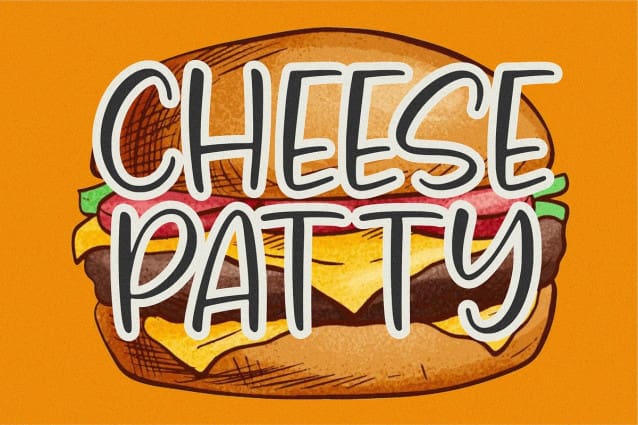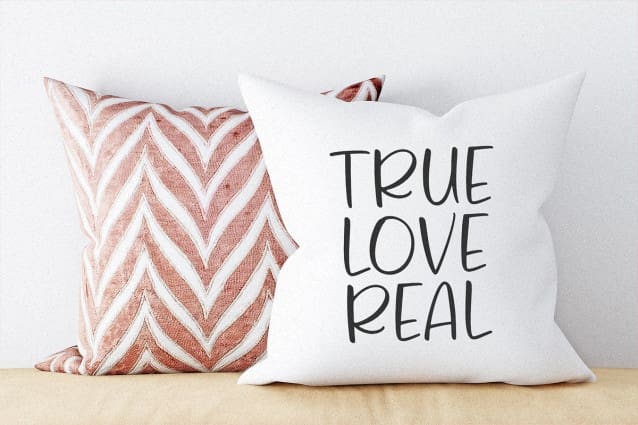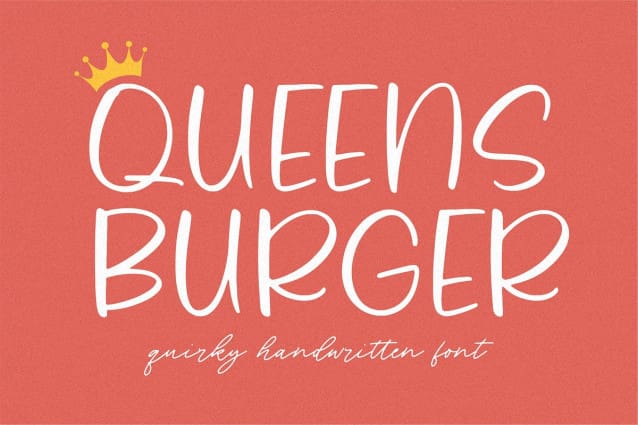
Queens Burger Font
Queens Burger Font is a Quirky Handwritten Font. Whether you’re using it for crafts, digital design, presentations, or making greeting cards, this font has the potential to become your favorite go-to font, no matter the occasion!